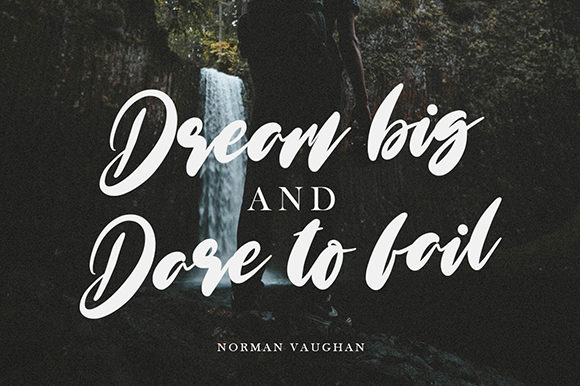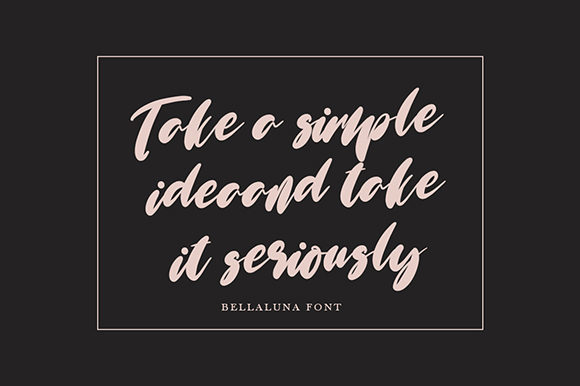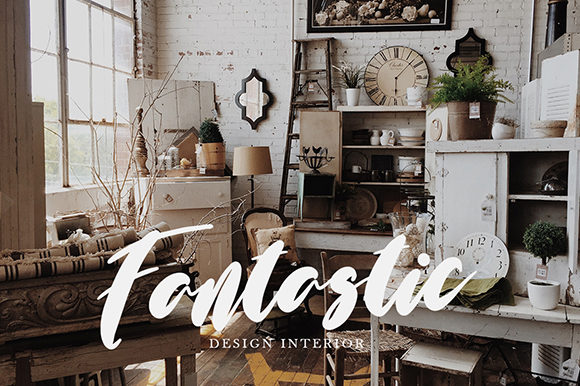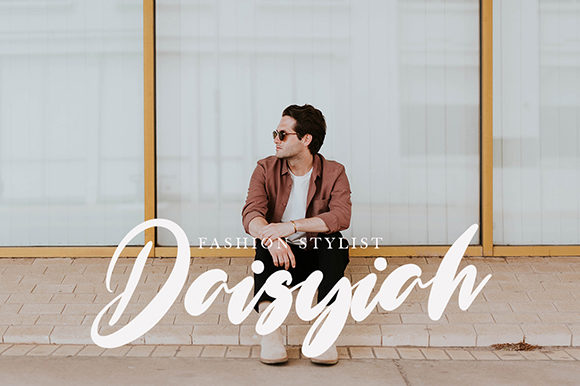
HomeScript FontsBellaluna Font Script Fonts Bellaluna Font FacebookXPinterestWhatsApp Bellaluna Font Poster 2 Bellaluna Font Poster 3 Bellaluna Font Poster 4 Bellaluna Font Poster 5 About Bellaluna Font Bellaluna is a unique and stunning handwritten font with a dynamic twist. Get inspired by its urban feel. DOWNLOAD NOW People also explored Chistodella Font Hi Fi Beauty Lady Font Peach Cuties Font UndieCrust Arianthy Font Bilanthy Font Geometric Font Wedding Font 311 0 TagsBellaluna Font Previous articleCharliez FontNext articleBiargaol Font LEAVE A REPLY Cancel reply Comment: Please enter your comment! Name:* Please enter your name here Email:* You have entered an incorrect email address! Please enter your email address here Website: Save my name, email, and website in this browser for the next time I comment. Personal Use Free Consequences Personal Use Free Read more about this font Heart Personal Use Free Read more about this font Roustel Personal Use Free Read more about this font Dacquoise Personal Use Free Read more about this font BLOG Free Fonts Risk: Why Free Fonts Can Be Dangerous for Designers Free Fonts Risk: Why Free Fonts Can Be Dangerous for Designers Using free fonts is a common practice in web and graphic design. However, the... How to Install and Use Fonts on Windows, macOS, and Web Projects Top 10 Handwritten Fonts That Elevate Your Designs Best Fonts for T-Shirt Design – Top 2025 Picks